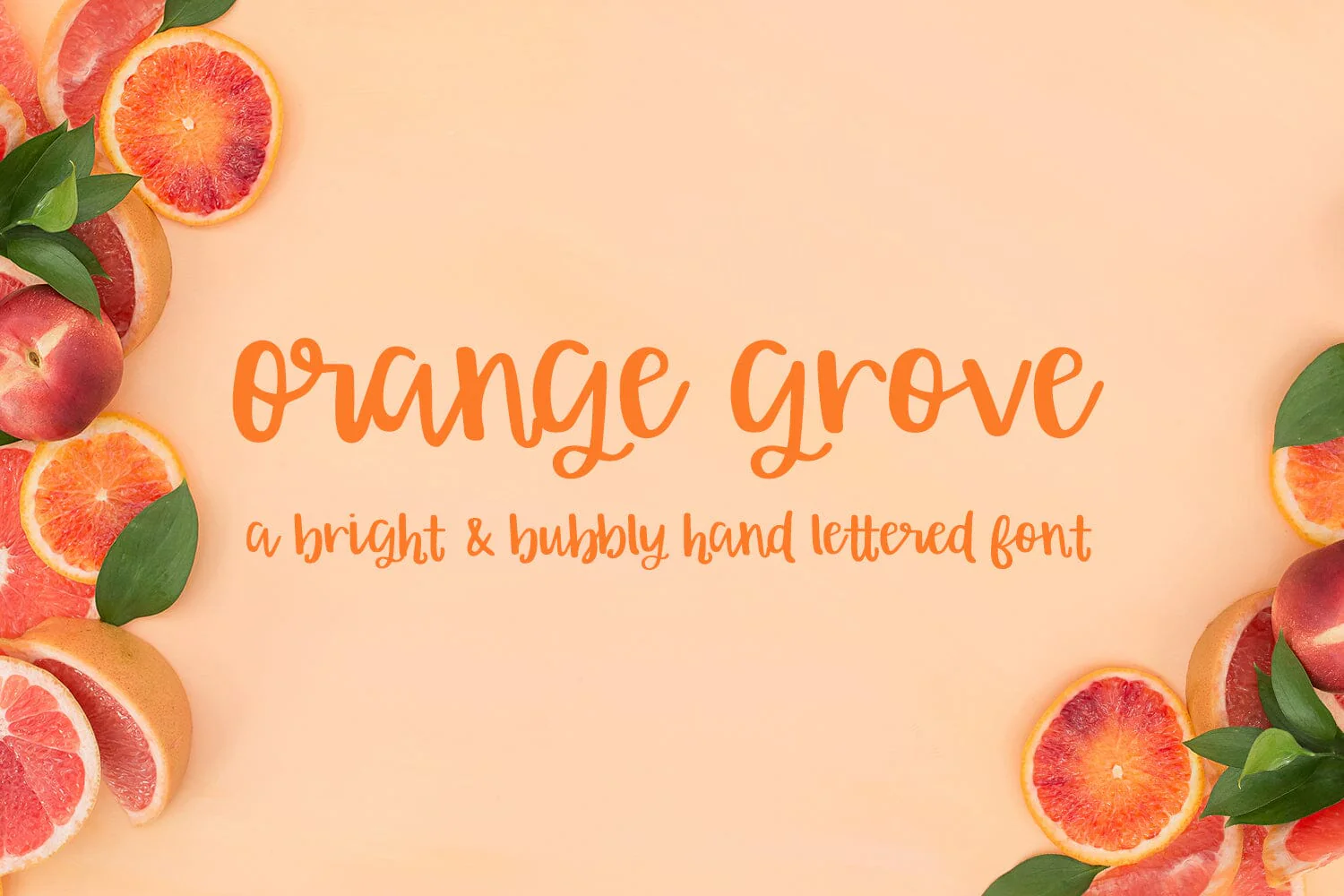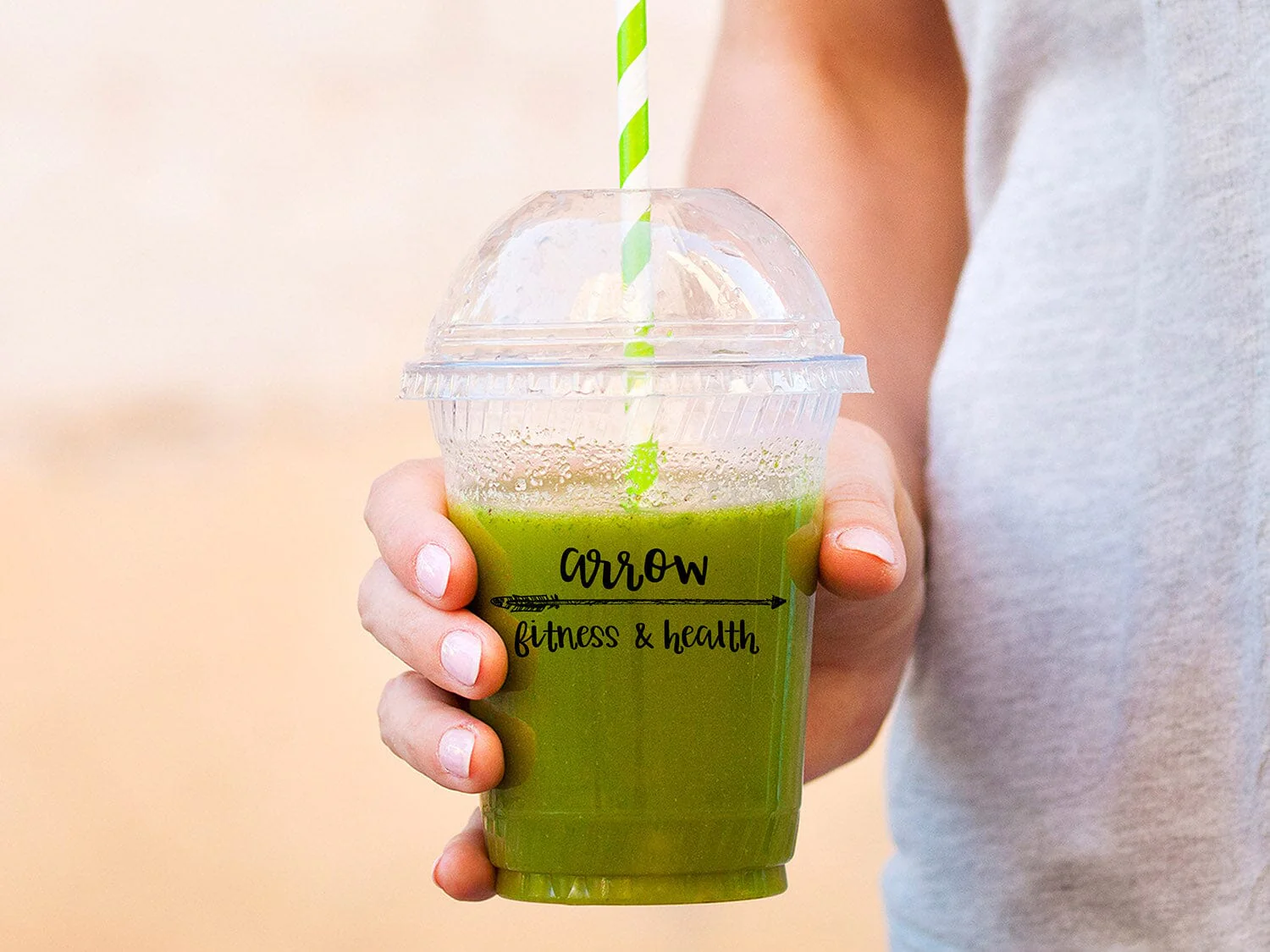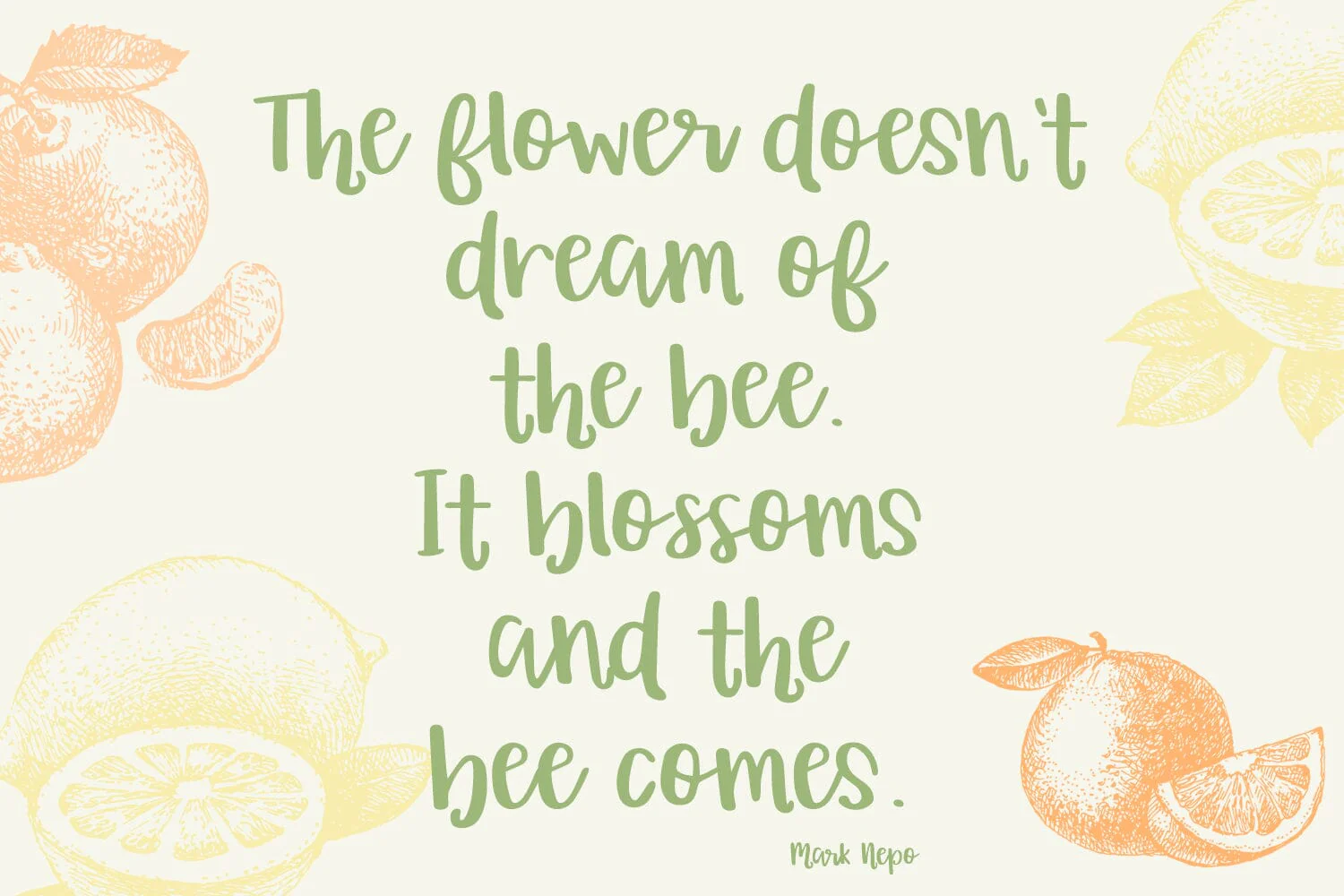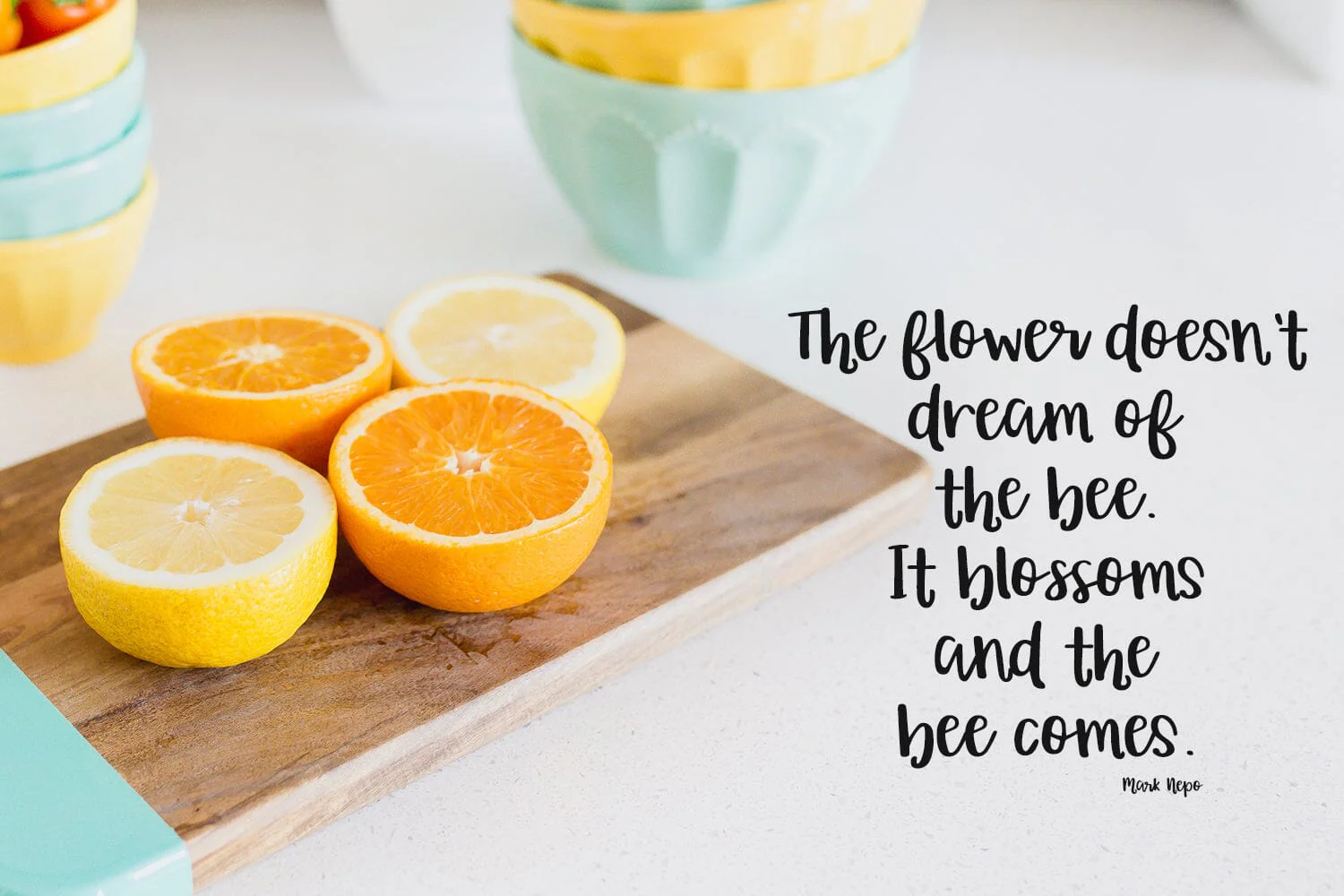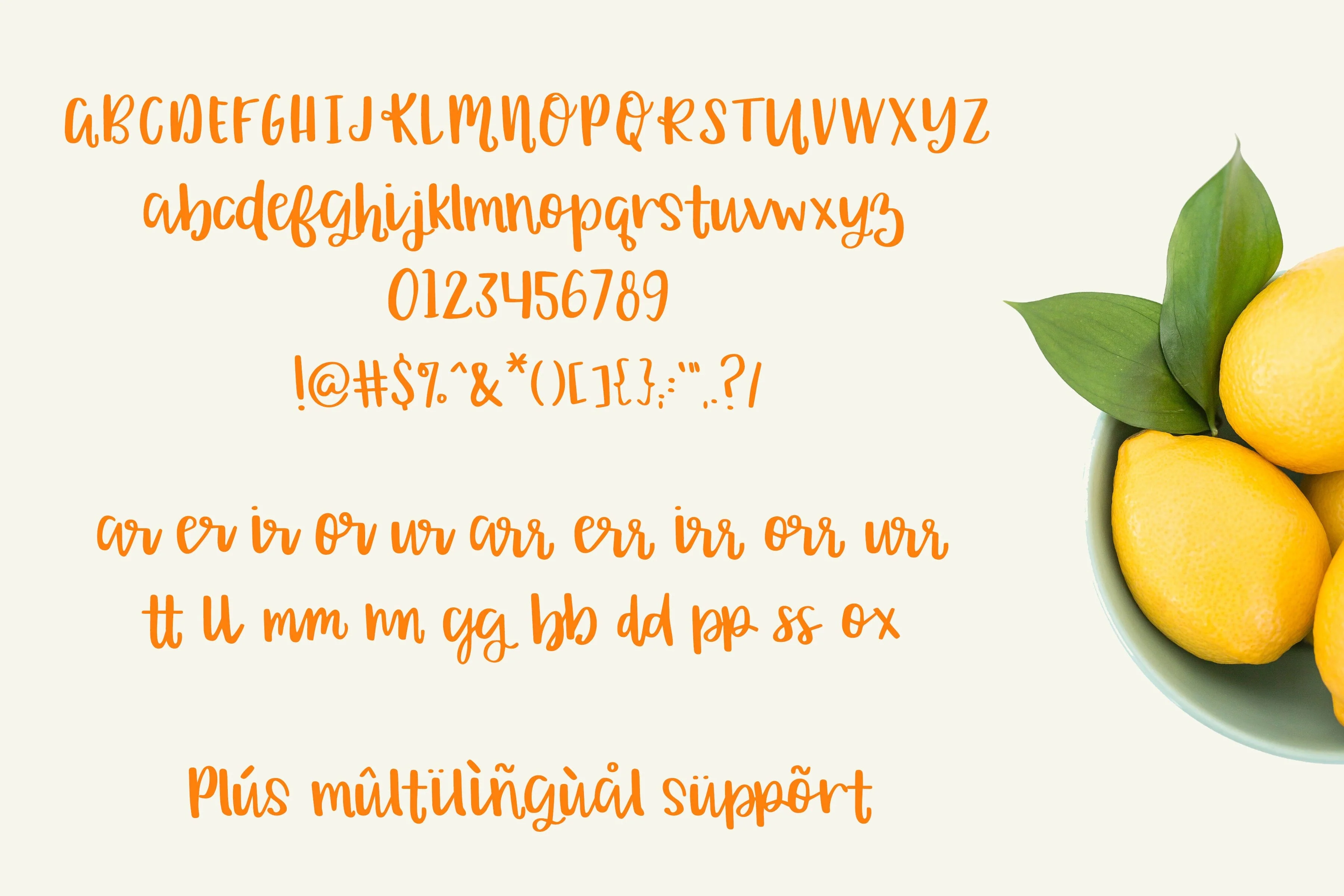
Orange Grove Script Typeface
Introducing Orange Grove, a bright & bubbly font.
Orange Grove is a little cursive, and a little print, with beautiful curves & easy to read letters. Includes some ligatures, a few alternates, & Western European language support!
Introducing Orange Grove, a bright & bubbly font.
Orange Grove is a little cursive, and a little print, with beautiful curves & easy to read letters. Includes some ligatures, a few alternates, & Western European language support!